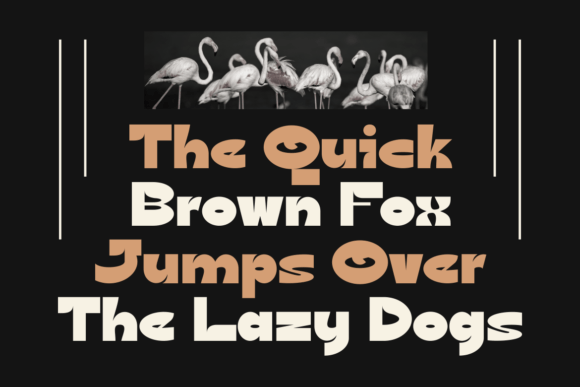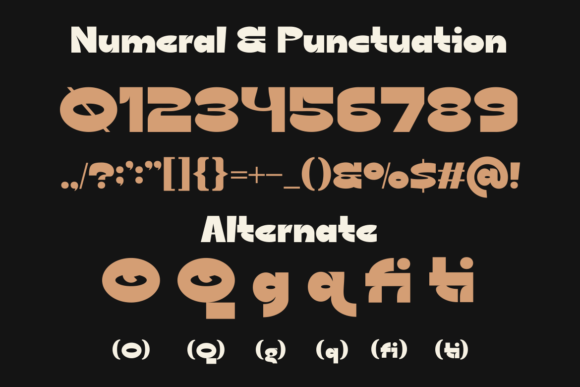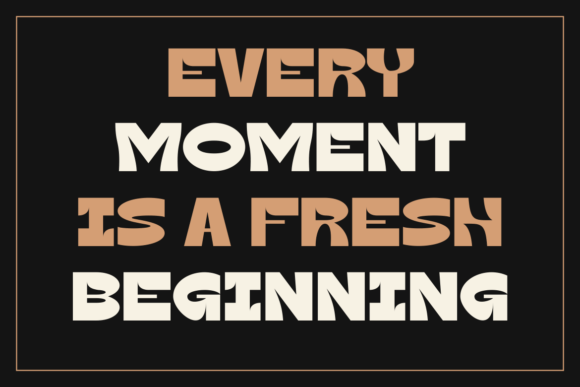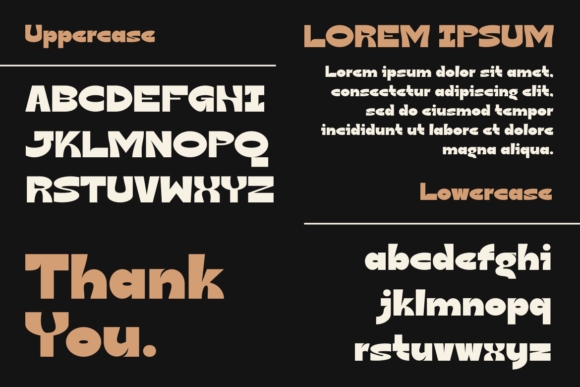
Bisten Font: The Ultimate Display Font for Bold and Authentic Designs
In the world of typography, a font can make or break a design. A well-crafted font can elevate a project from ordinary to extraordinary, while a poorly chosen one can have the opposite effect. For designers and crafters looking for a bold and authentic display font, Bisten Font is an excellent choice. In this article, we’ll explore the features and benefits of Bisten Font, and why it’s suitable for a wide range of branding projects.
What is Bisten Font?
Bisten Font is a bold and authentic display font designed to make a statement. Its unique and eye-catching design makes it perfect for projects that require a strong visual impact. The font is versatile and can be used for various applications, including logos, t-shirt printing, product design, and more.
Key Features of Bisten Font
• Bold and Authentic Design: Bisten Font boasts a bold and authentic design that grabs attention and makes a lasting impression.
• Versatility: The font is suitable for a wide range of contexts, from logos and branding to t-shirt printing and product design.
• Ease of Use: Bisten Font is easy to read and works well in both digital and print formats.
• Unique Style: The font’s unique style sets it apart from other display fonts, making it perfect for designers looking for something distinctive.
Benefits of Using Bisten Font
So, why choose Bisten Font for your next project? Here are some benefits of using this exceptional display font:
• Stand Out from the Crowd: Bisten Font’s bold design ensures that your project stands out from the competition.
• Professional Look and Feel: The font’s authentic design gives your project a professional look and feel, perfect for branding and marketing materials.
• Time-Saving: With Bisten Font, you can create stunning designs quickly and easily, saving you time and effort.
• Cross-Platform Compatibility: The font works well on various platforms, including digital devices, print materials, and more.
Use Cases for Bisten Font
Bisten Font is an incredibly versatile font that can be used in a variety of contexts. Here are some use cases to get you started:
• Logo Design: Create a bold and memorable logo for your brand with Bisten Font.
• T-Shirt Printing: Design eye-catching t-shirts with Bisten Font that’s sure to turn heads.
• Product Design: Use Bisten Font to create stunning product designs that showcase your brand’s personality.
• Branding and Marketing Materials: Elevate your branding and marketing materials with Bisten Font’s professional and authentic design.
Tips for Using Bisten Font Effectively
To get the most out of Bisten Font, here are some tips to keep in mind:
• Use it Sparingly: Bisten Font is bold, so use it sparingly to avoid overwhelming your design.
• Experiment with Colors: Try out different colors to find the perfect combination that complements your brand.
• Pair it with Other Fonts: Pair Bisten Font with other fonts to create a unique and visually appealing design.
In conclusion, Bisten Font is an exceptional display font that’s perfect for designers and crafters looking for a bold and authentic design. Its versatility, ease of use, and unique style make it suitable for a wide range of branding projects. Whether you’re creating a logo, t-shirt design, or product design, Bisten Font is an excellent choice. So why wait? Download Bisten Font today and take your designs to the next level!